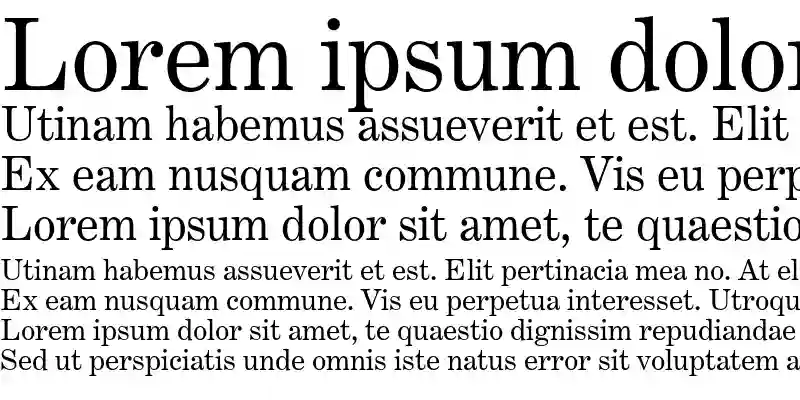
Century Expanded Font is a superb choice for a wide variety of design applications that demand excellent readability and a classic, authoritative presence. Imagine it forming the clear and trustworthy body text of a newspaper or academic journal, providing a timeless feel for book publishing, or adding a sense of established credibility to official documents and legal texts. Its robust construction and generous proportions also make it ideal for financial reports, government publications, and any project where clarity and a dignified aesthetic are paramount.
What makes Century Expanded Font so exciting is its enduring legacy as a highly legible and incredibly reliable typeface. Developed specifically for optimal reading comfort, its generous x-height, open counters, and well-defined serifs work together to ensure that even large blocks of text are easy on the eyes. It exudes a sense of traditional craftsmanship and academic rigor, yet its clean lines keep it from feeling outdated. This blend of historical charm and practical functionality makes it a truly dependable and engaging choice for any print or digital medium.
The Century Expanded Font family, while rooted in a classic design, offers sufficient versatility for various needs. You'll typically find a range of weights, from a standard Regular that's perfect for body text, to a more pronounced Bold that's ideal for headlines and emphasis. This selection allows designers to create clear visual hierarchies and guide the reader's eye effectively. Each weight maintains the consistent, clear forms and robust construction that define Century Expanded Font, ensuring a cohesive and highly readable aesthetic across all your projects. Discover its timeless appeal today – Century Expanded Font Free Download is available now!